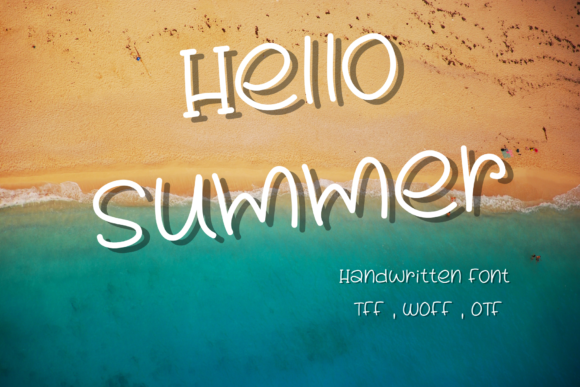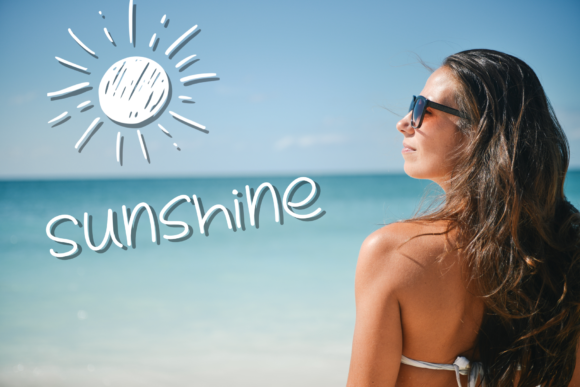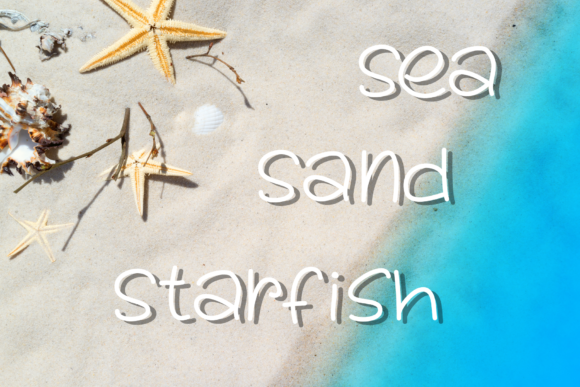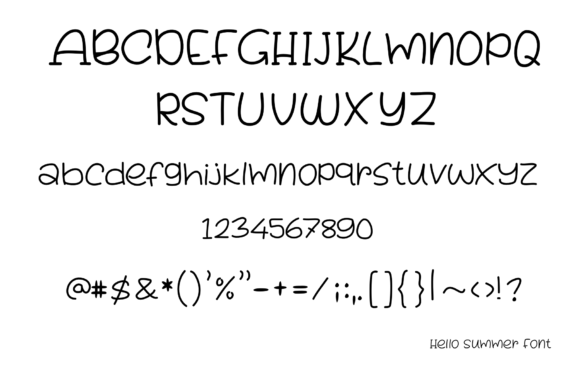
About Hello Summer Font
Introducing Hello Summer: The Sweet and Friendly Handwritten Font
Say hello to Hello Summer, a sweet and friendly handwritten font that will bring a touch of joy to your designs. Its natural and unique style makes it incredibly versatile, allowing you to use it in a wide range of creative projects. The possibilities are endless, and the only limit is your imagination!
With Hello Summer as your font of choice, you’ll find that it effortlessly adds a delightful charm to your work. Its handwritten appeal exudes warmth and approachability, making it perfect for logos, branding, greeting cards, posters, magazines, social media, planner prints, and so much more.
Embrace the carefree and joyful spirit of Hello Summer as you embark on your design journey. Let it be the font that infuses your projects with a sense of fun and positivity, creating designs that resonate with your audience.
As you explore the versatility of Hello Summer, you’ll discover that it adapts beautifully to any context. Its friendly and welcoming script makes it perfect for adding a personal touch to your branding and marketing materials, while its playful vibe suits social media posts, planner prints, and other creative projects.
So, welcome Hello Summer into your font collection and watch how it elevates your designs. Let it be the font that adds a breath of fresh air and a dash of sweetness to your work. With Hello Summer as your companion, you’ll find that creating beautiful and engaging designs becomes an exciting and delightful journey. Embrace the cheerful essence of Hello Summer and let your creativity bloom!